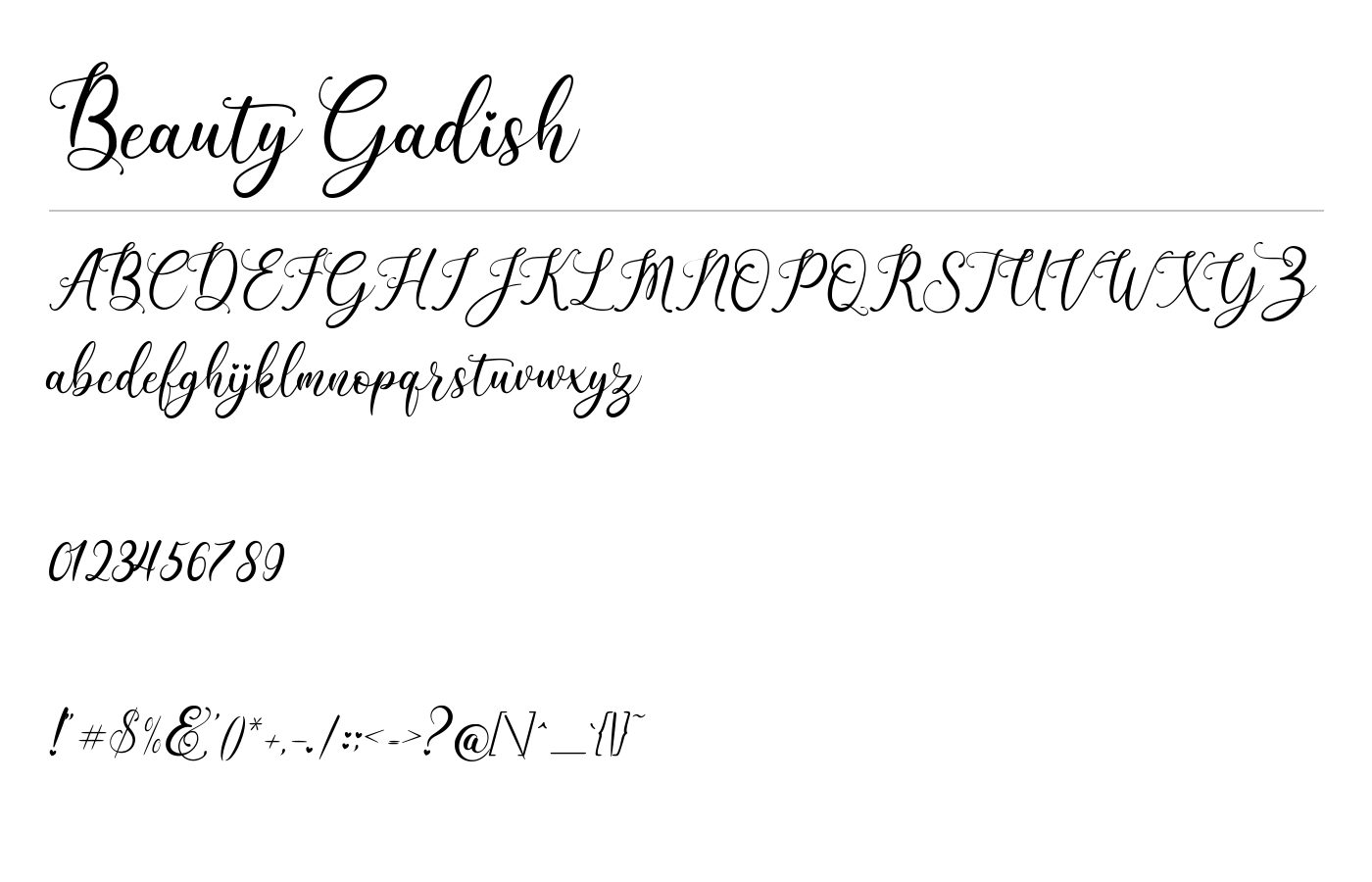
Beauty Gadish is an elegant and delicate script font featuring graceful, flowing letterforms with stylish swashes and a refined calligraphic touch. Its slender strokes and high contrast create a sophisticated, feminine feel, making it ideal for invitations, branding in beauty or fashion, and any design that aims to convey elegance and charm. This font works beautifully in headlines or logos where a personal, luxurious flair is desired.
Beauty Gadish Font
About Beauty Gadish Font
| Designer | Rinto Dwi Nugroho (Almeerastudio 2019) |